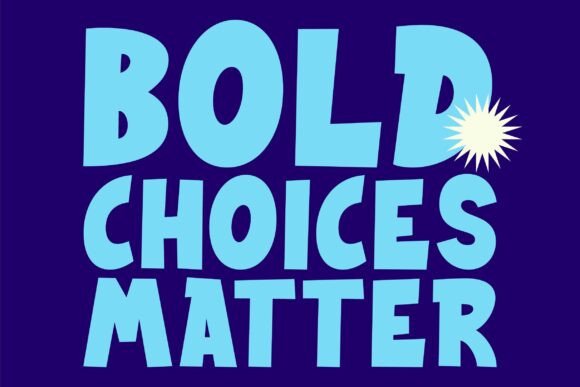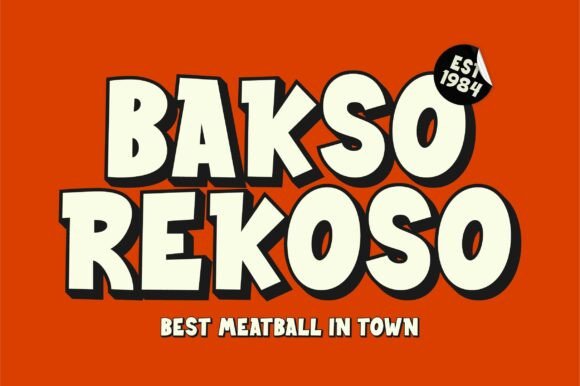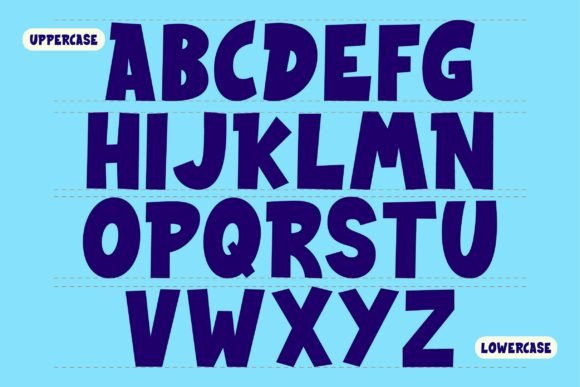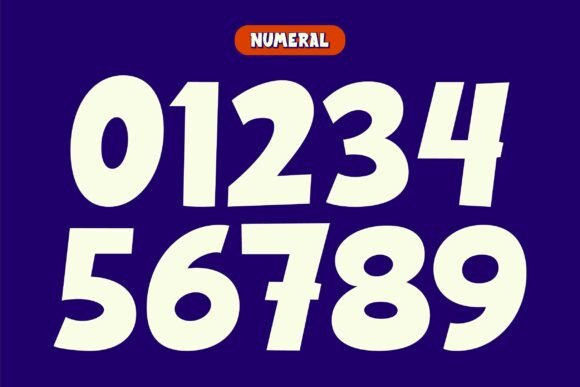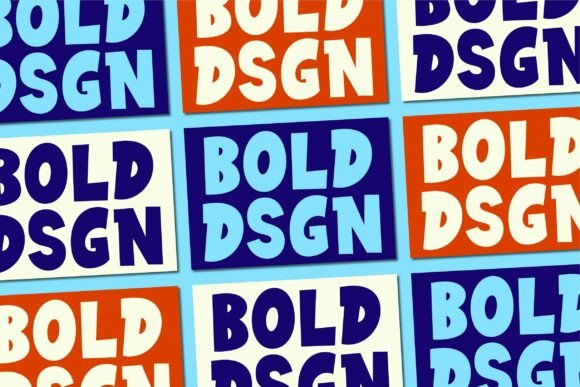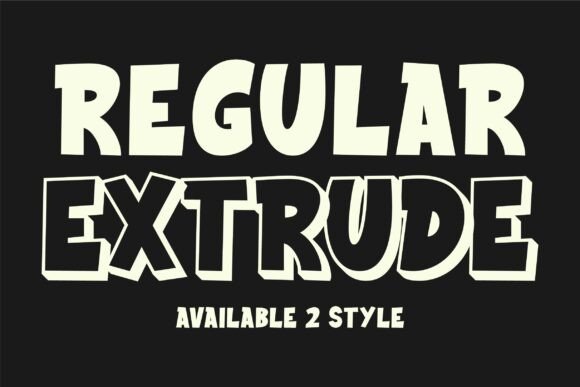
Dumbo Font: Elevate Your Designs with a Bold and Playful Typeface
In the world of typography, fonts play a crucial role in making or breaking a design. A well-chosen font can instantly elevate your project, adding a touch of personality and flair. If you’re on the hunt for a bold and playful typeface that can bring a fun and dynamic element to your designs, look no further than the Dumbo font. This fantastic display font is perfect for designers and crafters looking to add a touch of whimsy and excitement to their projects.
What is Dumbo Font?
Dumbo is a bold display font that boasts a fancy and comic aesthetic, making it perfect for designs that require a bit of personality. The font comes in two versions: regular and extrude. The regular version of Dumbo font brings a playful touch to any design, with its bold lines and curvaceous shapes. On the other hand, the extrude version adds depth and dimension to your text, creating an eye-catching effect that’s sure to grab attention.
Key Features of Dumbo Font
- Bold and Playful Design: Dumbo font features a bold and playful design that’s perfect for making a statement. Its unique shape and lines make it stand out from other fonts, adding a touch of personality to your designs.
- Two Versions: The font comes in two versions: regular and extrude. The regular version is perfect for adding a playful touch to your designs, while the extrude version adds depth and dimension.
- Wide Range of Applications: Dumbo font is suitable for a wide range of creative applications, including posters, flyers, brochures, logos, and more.
Why Choose Dumbo Font?
So, why choose Dumbo font for your next design project? Here are just a few reasons why this fantastic font stands out from the crowd:
- Unique and Eye-Catching: Dumbo font is a unique and eye-catching typeface that’s sure to grab attention. Its bold lines and curvaceous shapes make it perfect for designs that require a bit of personality.
- Versatile: The font is versatile and can be used for a wide range of creative applications. Whether you’re designing a poster, flyer, or brochure, Dumbo font is perfect for adding a touch of whimsy and excitement.
- Easy to Read: Despite its bold and playful design, Dumbo font is easy to read, making it perfect for designs that require a bit of flair but still need to be legible.
Tips and Tricks for Using Dumbo Font
Here are a few tips and tricks to help you get the most out of Dumbo font:
- Use it Sparingly: While Dumbo font is perfect for adding a touch of personality to your designs, it’s best to use it sparingly. Use it for headings or titles, and a more straightforward font for body text.
- Experiment with Colors: Dumbo font looks great in a variety of colors. Experiment with different colors to find the one that best suits your design.
- Pair it with Other Fonts: Dumbo font can be paired with other fonts to create a unique and eye-catching effect. Experiment with different font combinations to find the one that works best for your design.
In conclusion, Dumbo font is a bold and playful typeface that’s perfect for designers and crafters looking to add a touch of whimsy and excitement to their projects. With its unique design, two versions, and wide range of applications, Dumbo font is a great choice for anyone looking to elevate their designs. Whether you’re designing a poster, flyer, or brochure, Dumbo font is sure to grab attention and make your design stand out from the crowd.